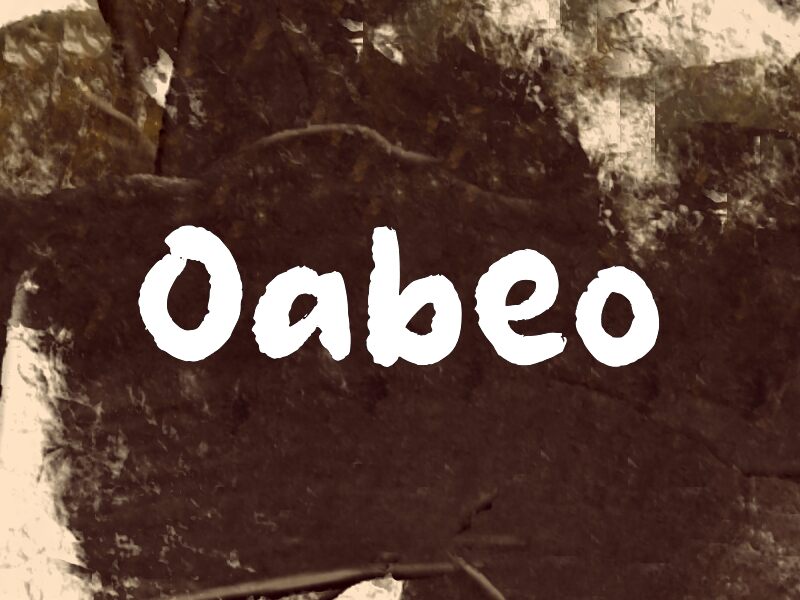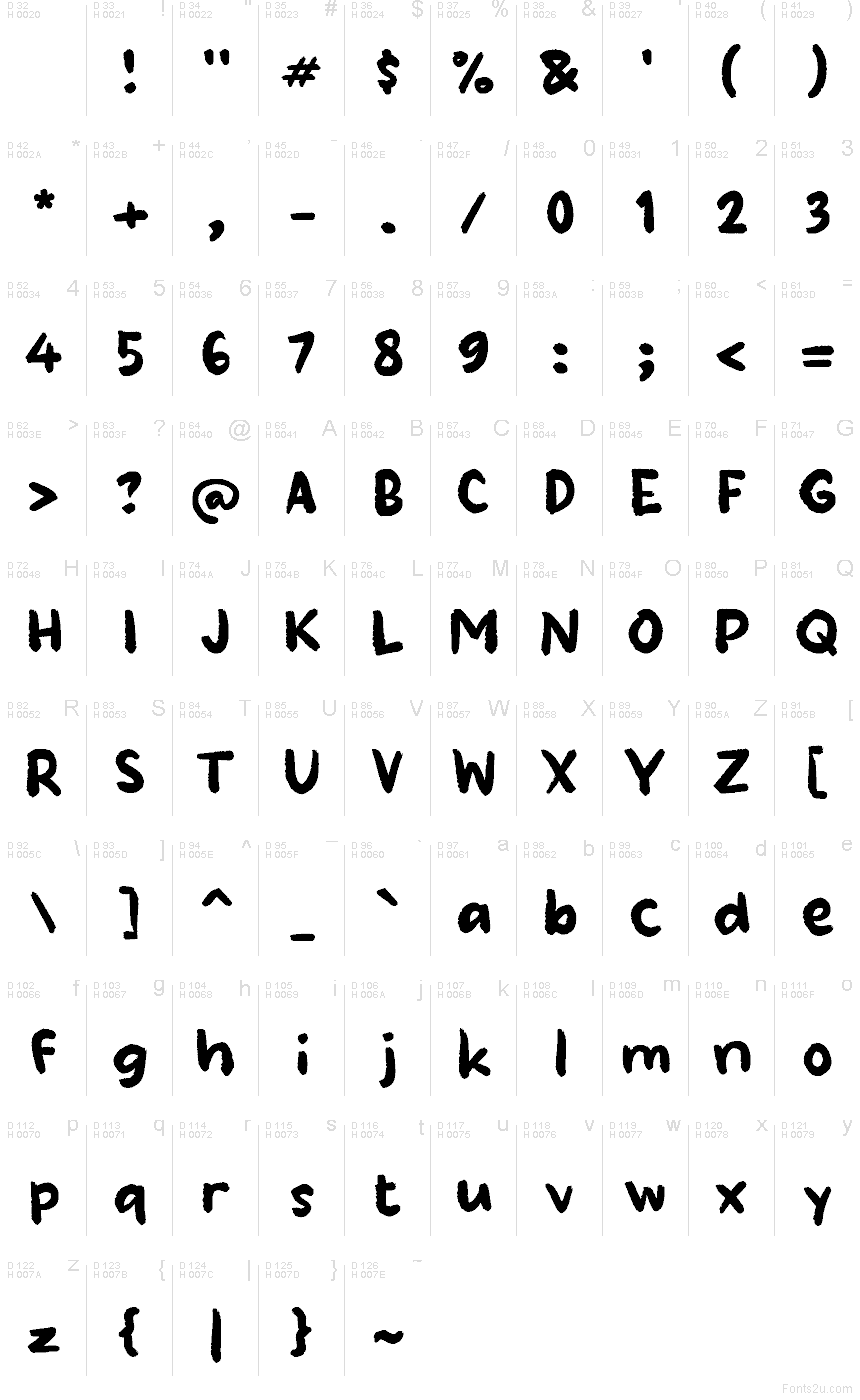
Oabeo
Oabeo font by wepfont.com is a free brush typeface with a bold, inky personality that looks like it was painted in thick, slightly messy strokes. Its rounded blobs and irregular edges feel almost stamped onto the page, giving each word a chunky, tactile presence that’s easy to spot from a distance. There’s a casual, handmade energy here—more like a playful doodle on a notebook than a polished script—so your titles feel fun, loud, and a little rebellious.
Using Oabeo, you get that “painted by hand” look without losing legibility, which makes this free font a strong choice for posters, stickers, YouTube thumbnails, kids’ packaging, social media graphics, and bold logo wordmarks. It thrives in large sizes where the rough texture and uneven contours can really show. Pair it with a clean geometric sans for body text to keep layouts readable while Oabeo does the shouting.